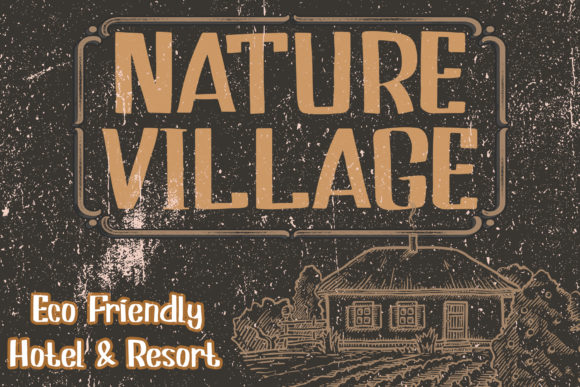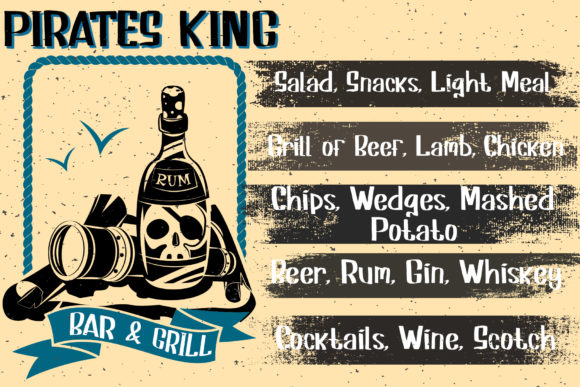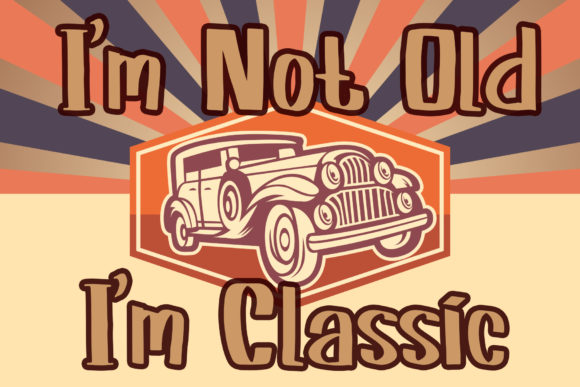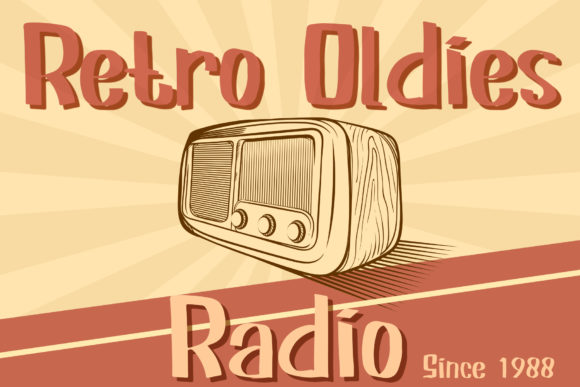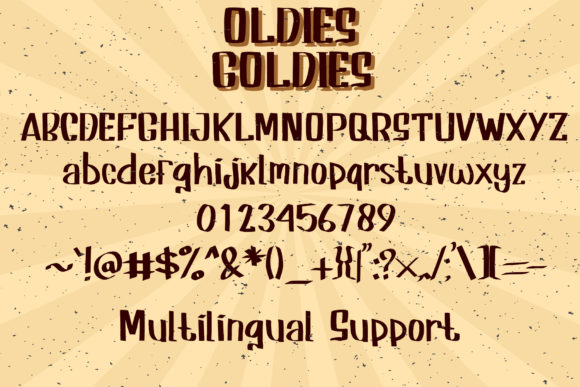
Introduction to Oldies Goldies Font
Do you remember that moment when you stumbled upon the perfect design resource? The one that makes your project go from ordinary to extraordinary? For designers, it’s a feeling like no other – a spark of creativity that sets our imagination ablaze. And for those who’ve experienced it, we’re excited to share with you the magic of the Oldies Goldies Font.
With its whimsical display style, this enchanting font embodies fun, quirkiness, and authenticity. Whether you’re working on a creative project or simply looking for a unique touch to elevate your design, the Oldies Goldies Font is a valuable addition to your toolkit. And the best part? It’s available for a free download, making it accessible to designers of all levels.
Key Features of Oldies Goldies Font
- Unique retro aesthetic with a distressed texture, perfect for creative projects that need a nostalgic touch.
- Perfect for creating vintage-inspired designs, such as posters, flyers, and social media graphics, for a creative project.
Honest Review: Oldies Goldies Font
I recently stumbled upon the Oldies Goldies Font, and I’m excited to share my honest thoughts on this design resource.
Firstly, I love how versatile this font is. It’s perfect for any creative project that requires a touch of vintage charm. The high quality of the font is evident, and I appreciate the transparent background, making it easy to work with.
What works well: ✨ The font’s retro vibe is on point, and it’s great for designers who want to add a unique twist to their designs. The font is also a great addition to any design library, and it’s a free download, which is a definite plus.
- Perfect for vintage-themed designs
- Great for adding a unique twist to designs
However, I do have a few limitations to mention: ⚠️ The font is only available in a few styles, which might limit its use in more complex designs. Additionally, some users may find the font’s retro style too dated.
Overall, I’m impressed with the Oldies Goldies Font. While it may have some limitations, its unique style and high quality make it a valuable addition to any design library. I would definitely recommend it to designers looking for a vintage-inspired font.
Common Use Cases for Oldies Goldies Font
The Oldies Goldies Font is ideal for a variety of creative projects, including graphic design, branding, and digital art. Its unique aesthetic makes it perfect for use in logos, business cards, and social media graphics. With its transparent background feature, you can create stunning designs that stand out from the crowd.